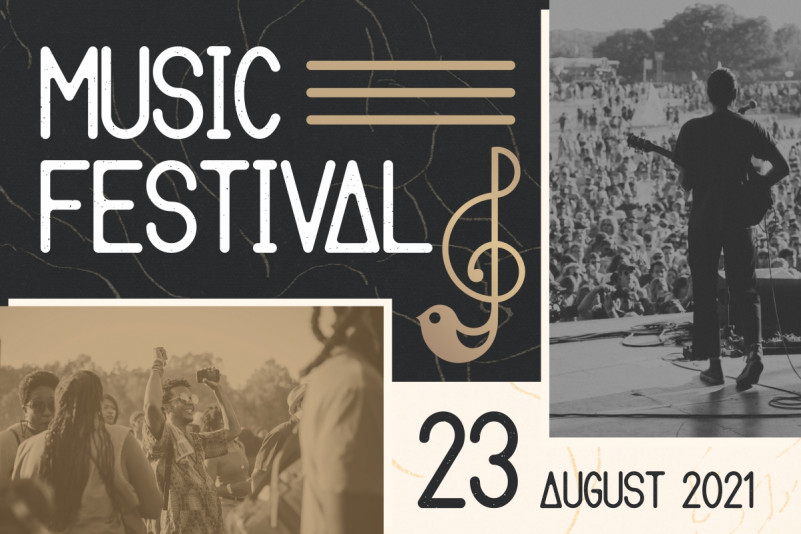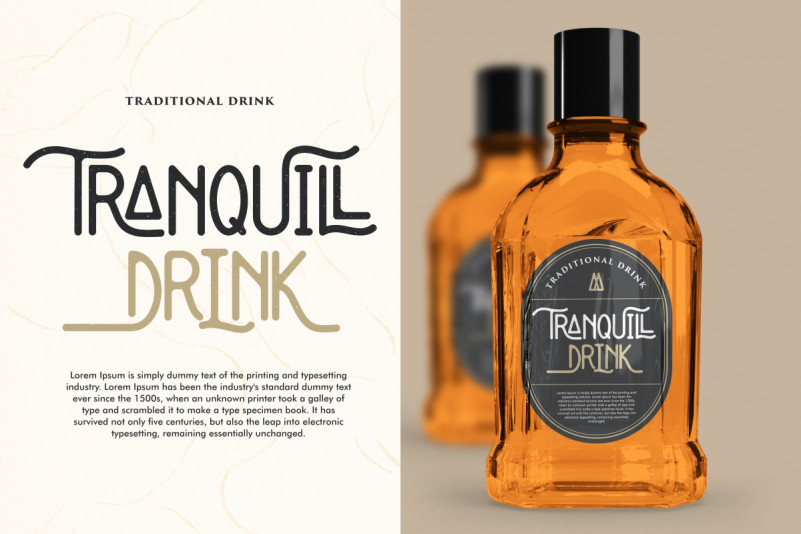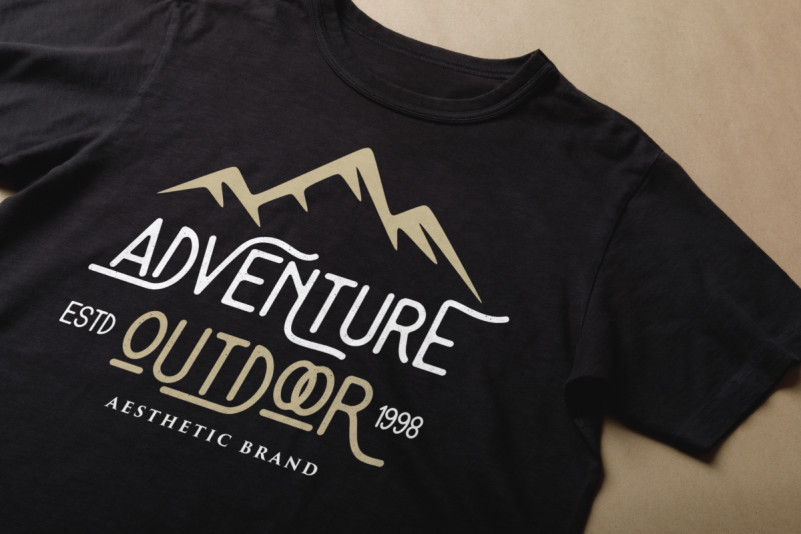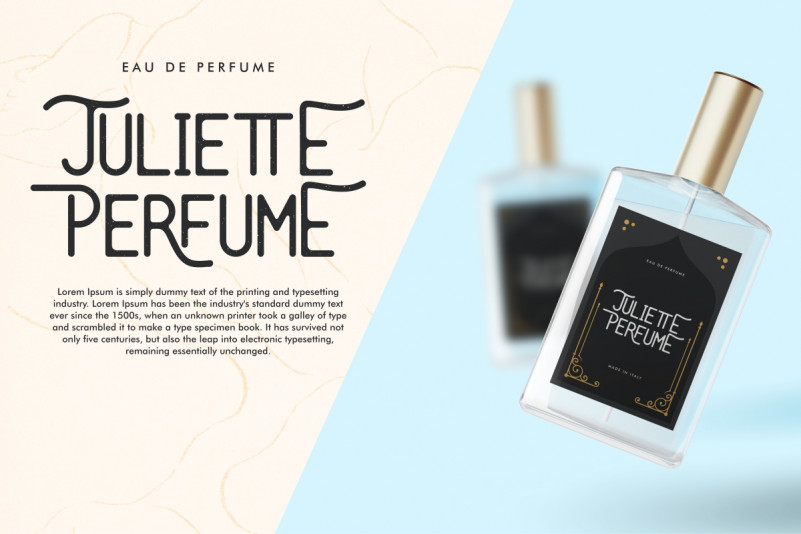
Mountreal Font
Mountreal Vintage Font
It’s a classic display font with awesome style. The font was inspired from vintage classic lettering. It has a unique style that will bring the special effect to the design. It will works for wedding, branding, artist, make up, and any other things. Mountreal includes full set of Uppercase and Lowercase Basic Characters, Numerals and Punctuation. The font will also works for outdoor, fashion products, camping, adventure style. The font is perfect for many projects, headlines, logos, poster, tittle, products, etc